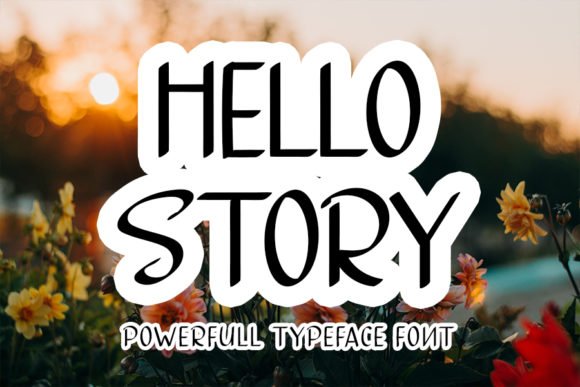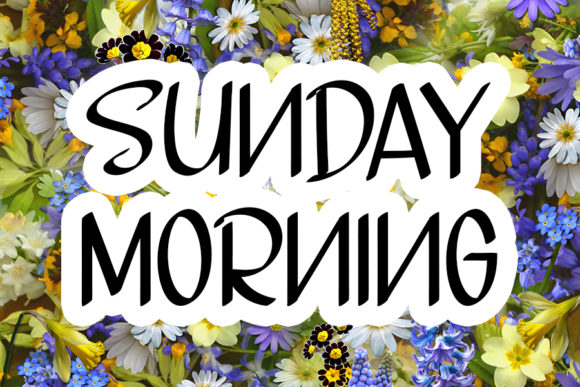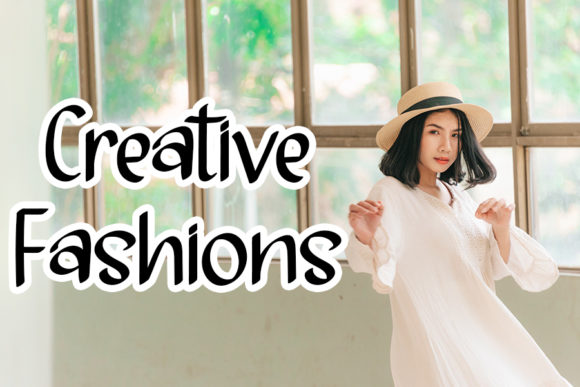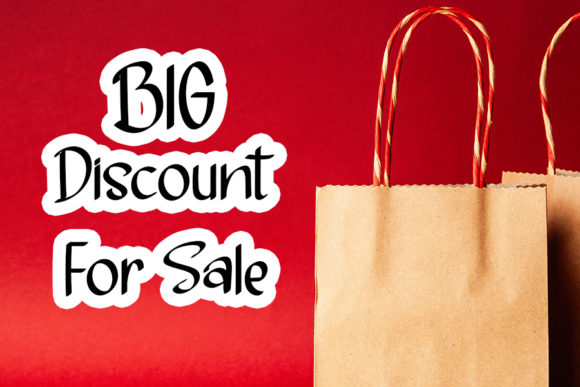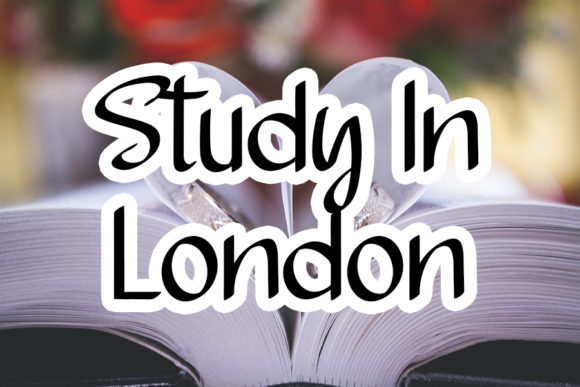
When Words Flow Like Water: The Magic of Hello Story Font
Do you remember the feeling of scribbling down your first love letter or writing a heartfelt birthday message to a dear friend? The way your pen danced across the paper, leaving a trail of messy yet beautiful handwriting? That’s the magic of Hello Story Font – a flowing and casual handwritten font that brings warmth and personality to any design.
Hello Story Font is more than just a typeface; it’s a way to connect with your audience and tell a story. Whether you’re creating gorgeous wedding invitations, beautiful stationary art, or eye-catching social media posts, this font is the perfect companion. As a designer, you’ll appreciate its incredible versatility and the value it brings to your projects.
With Hello Story Font, you’ll be able to capture the essence of your message and convey it in a way that’s both personal and professional. Say hello to the perfect font for your next design project!
Hello Story Font Key Features
- Font Family: Hello Story Font is a unique, hand-drawn script font with a playful and whimsical feel.
- Character Set: Includes a wide range of characters, including uppercase and lowercase letters, numbers, punctuation marks, and special characters.
- Unique Characteristics: Features a mix of handwritten and digital elements, creating a distinctive and eye-catching look.
Hello Story Font Review
Overall, I was excited to dive into the Hello Story Font, hoping for a versatile font that could elevate my designs. While it has some nice features, I found it to be somewhat hit-or-miss.
- It’s clear the font designers aimed for a friendly, approachable feel, which they’ve mostly achieved. The font does look welcoming and easy to read.
- The font’s various weights and styles offer some nice flexibility for different design applications.
- The font’s high contrast and legibility make it suitable for body text and headings.
- The font feels a bit generic and doesn’t have a strong, unique identity.
- The font’s x-height could be larger, making it more suitable for longer body text.
- The font’s support for non-Latin scripts is limited, which may be a concern for designers working with multiple languages.
The Hello Story Font has some nice qualities, but its limitations hold it back from being a standout choice. If you’re looking for a solid, unobtrusive font, it might fit the bill, but for something more unique or robust, you might want to consider other options.
Getting the Most Out of Hello Story Font
For the best results, use Hello Story Font in conjunction with bold or italic text to create a visually appealing contrast.
Experiment with different font sizes and colors to find the perfect combination for your design.
Hello Story Font is ideal for:
- Children’s books and educational materials.
- Storytelling and narrative-driven content.
- Designing for a playful, whimsical brand aesthetic.
Alternatives to Hello Story Font
Ostrich Sans is a modern sans-serif font designed for digital use. It’s ideal for use in digital products, branding, and advertising where a clean and minimalist aesthetic is desired.
Compared to Hello Story Font, Ostrich Sans is more modern and has a more straightforward design. It’s a great choice for designers who want a clean and easy-to-read font for digital applications.
Playfair Display is a luxurious and elegant serif font designed for use in high-end branding, advertising, and publishing. It’s ideal for use in situations where a touch of sophistication and elegance is desired.
Compared to Hello Story Font, Playfair Display is more ornate and luxurious. It’s a great choice for designers who want to add a touch of sophistication to their designs.